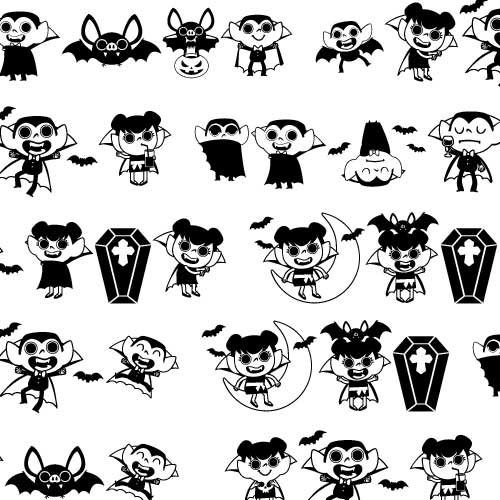
DB Little Vampires - DB
This adorable doodlebat font features 28 little vampires and bats perfect for Halloween. Create fun parties, cards, crafts, decor, scrap book pages, planner stickers and more!